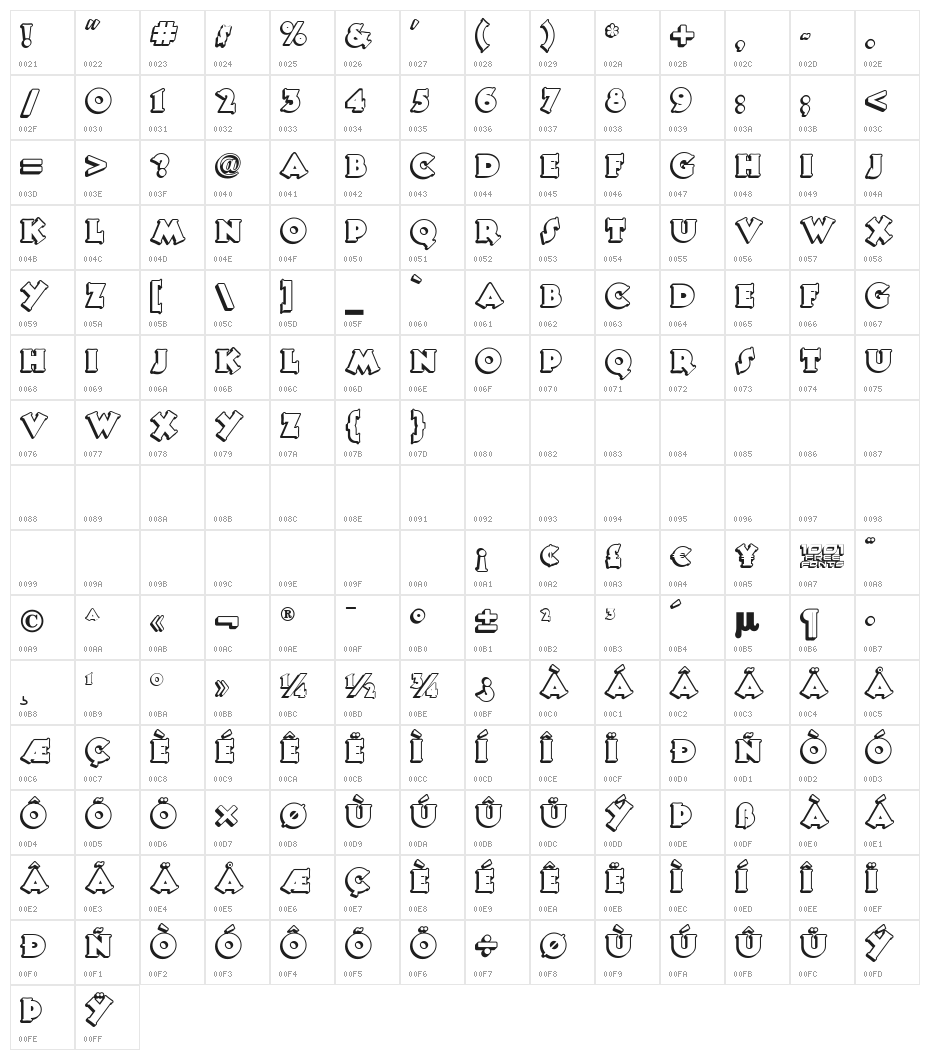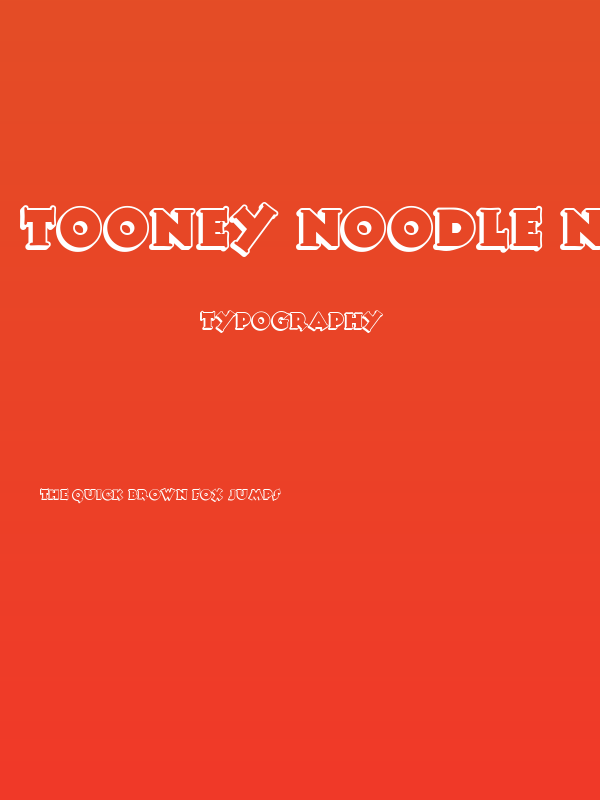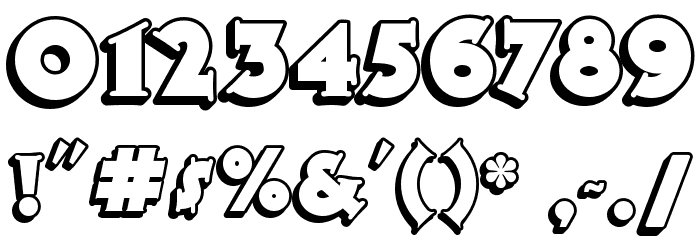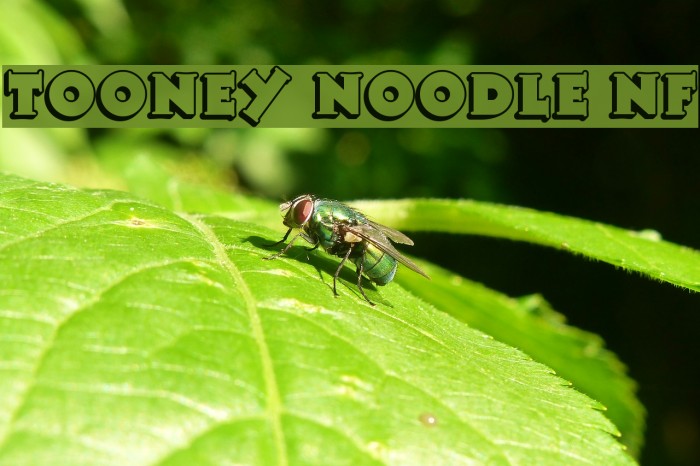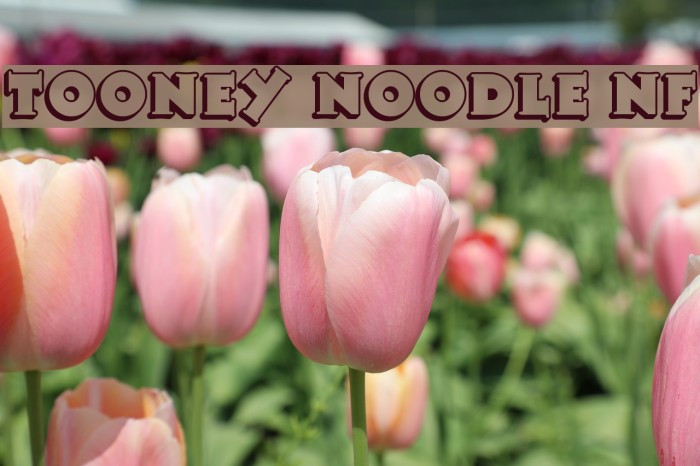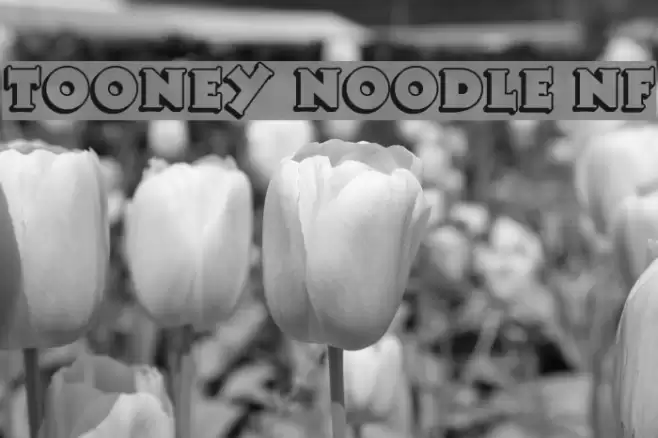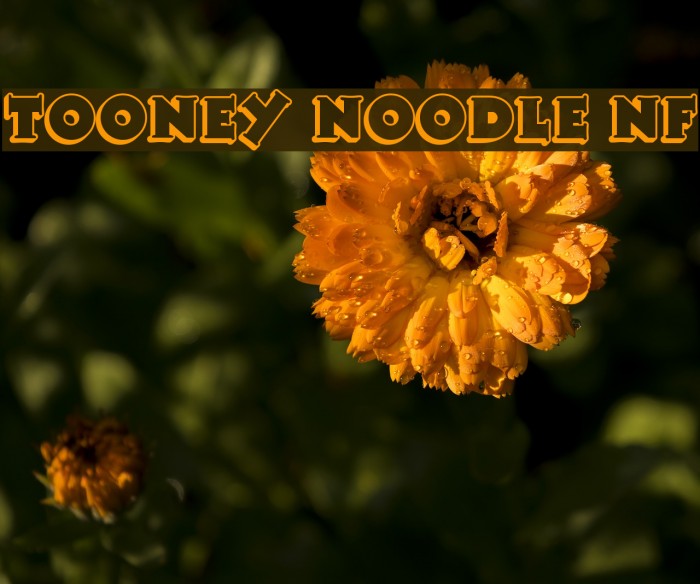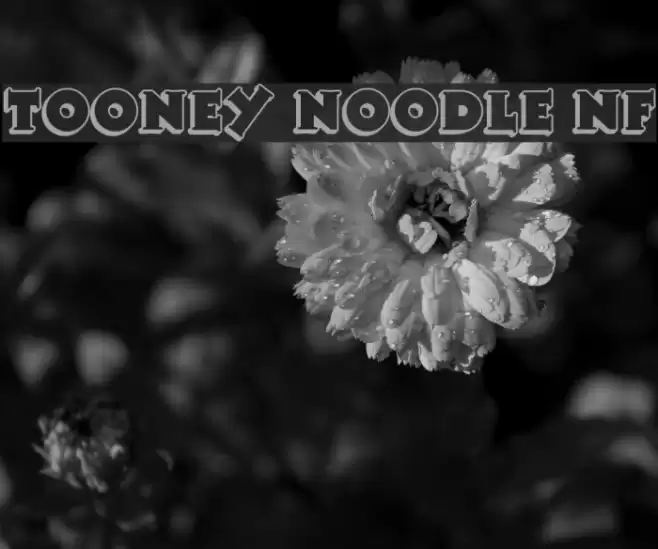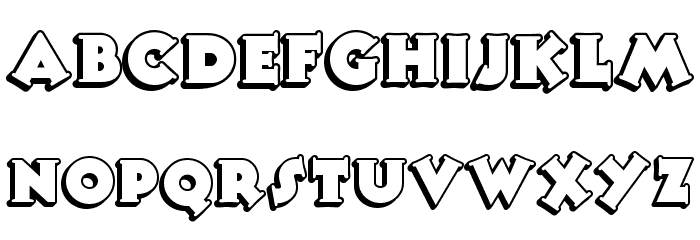
Tooney Noodle NF Font
Tooney Noodle NF Description
This font features a playful and bold style with a three-dimensional effect, created by a thick black shadow offset to the right and bottom of each character. The letters are uppercase and have a cartoonish, exaggerated form, with wide, rounded edges and a consistent stroke width. The numbers and special characters follow the same design principles, maintaining the font's cohesive and whimsical appearance. The overall look is eye-catching and fun, making it suitable for projects that require a lively and engaging typeface.
| Overall Style | Playful, Cartoonish |
| Proposed Projects | Ideal for children's books, comic strips, playful branding, and party invitations. |